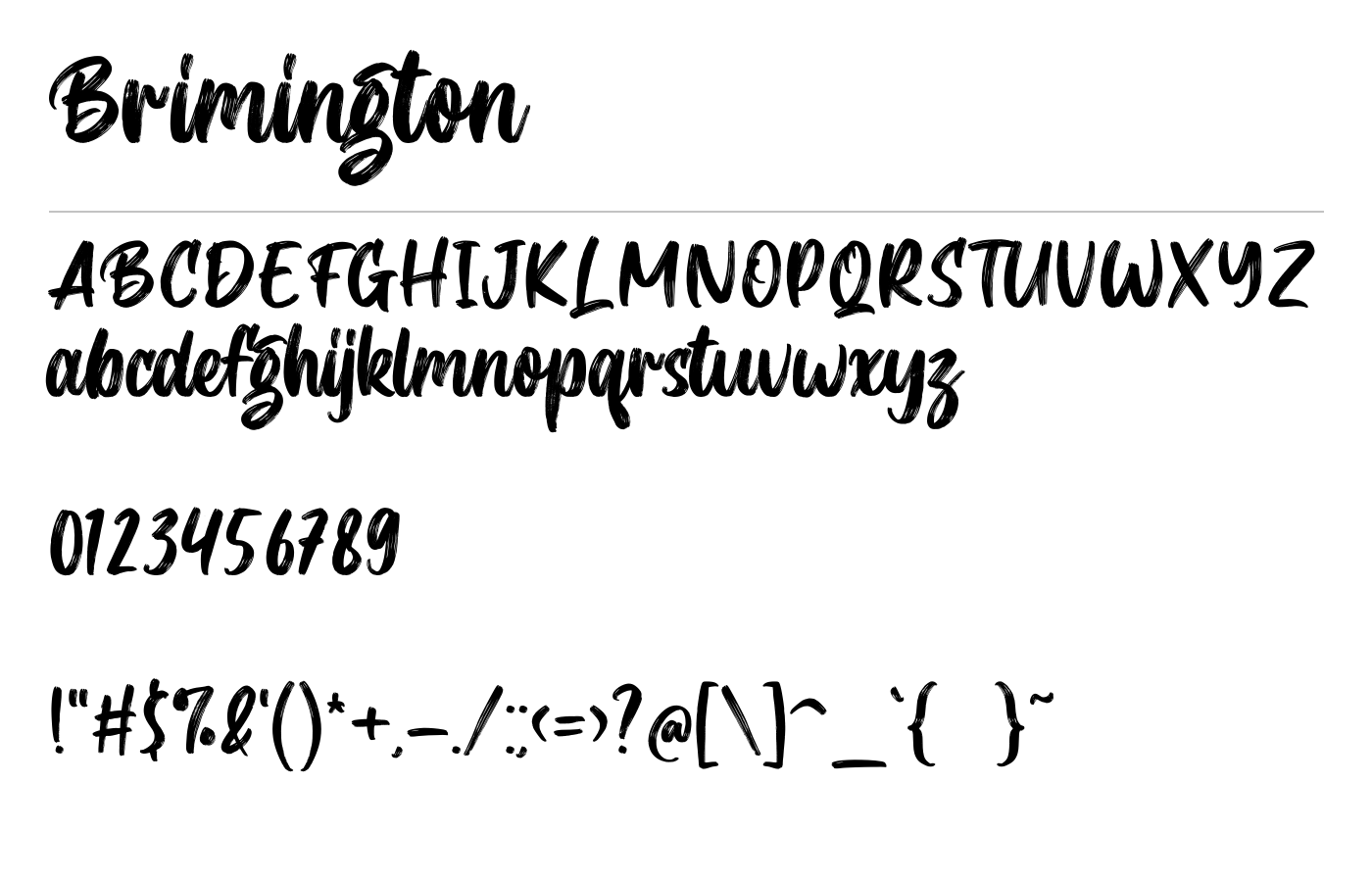
Brimington is a lively, brush-style script font with a bold weight and textured strokes that create an energetic, hand-painted feel. Its casual yet confident letterforms make it perfect for adding a personal, artistic touch to branding, posters, or social media graphics. This font works best for designs that want to convey creativity, warmth, and a friendly handcrafted vibe.
Brimington Font
About Brimington Font